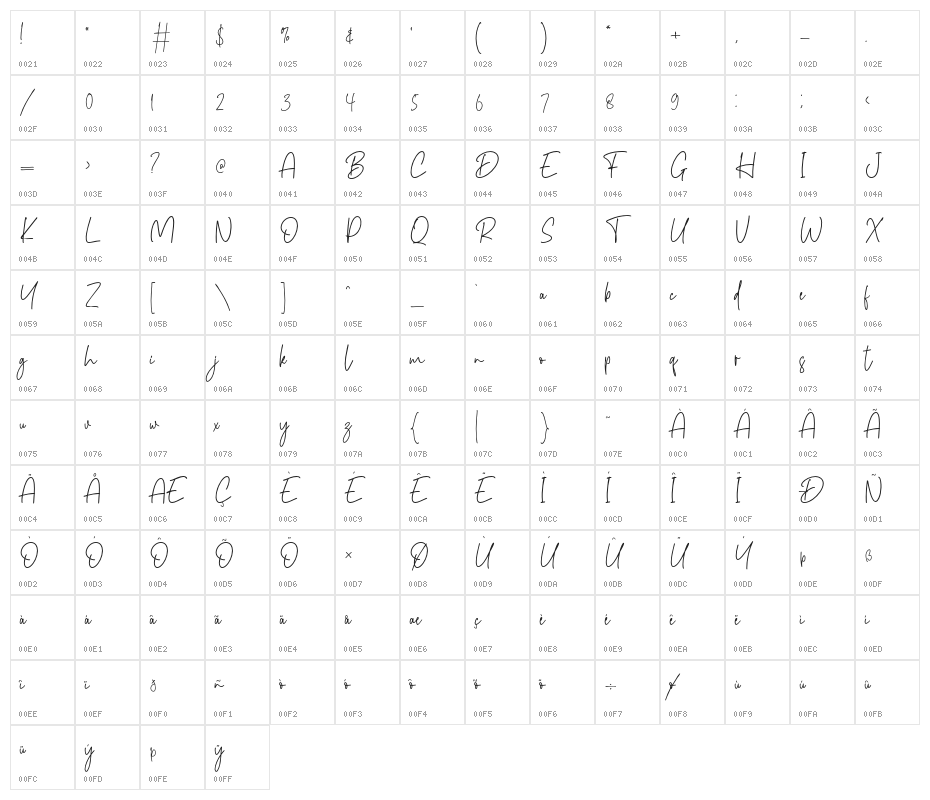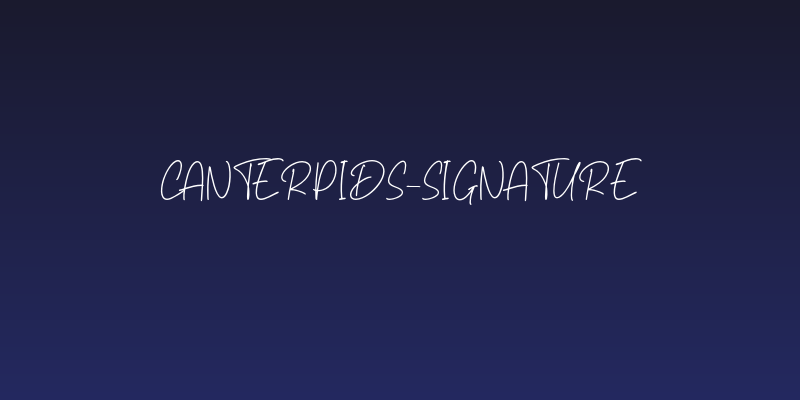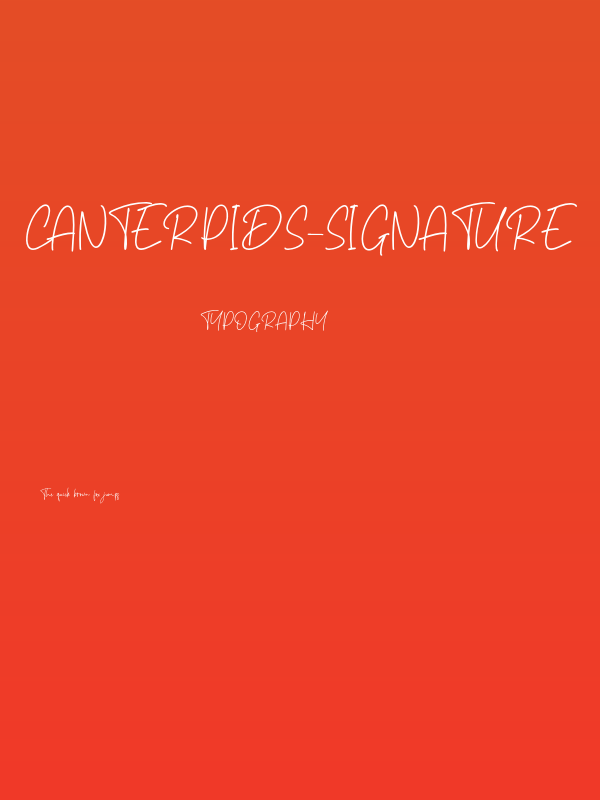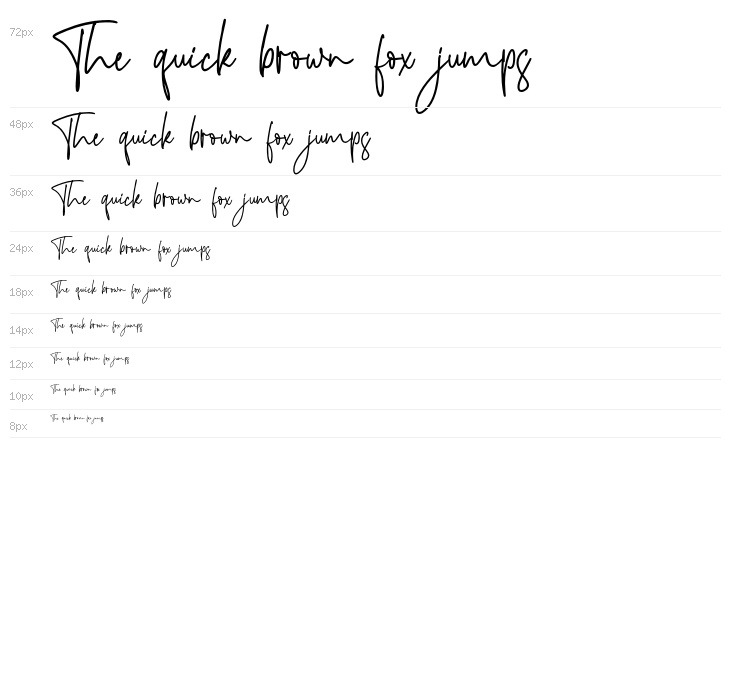
Canterpids-Signature Font
Canterpids-Signature Description
This font exhibits a flowing, handwritten style that mimics the elegance of a personal signature. The characters are crafted with smooth, continuous strokes, giving it a natural and organic feel. The uppercase letters are tall and slightly narrow, while the lowercase letters maintain a consistent flow, enhancing the script-like appearance. The numerals and special characters are designed to complement the overall aesthetic, maintaining the same fluidity and grace. This font is perfect for adding a personal touch to any project, conveying sophistication and creativity.
| Overall Style | Elegant, Personal, Creative |
| Proposed Projects | Ideal for wedding invitations, personal branding, logos, and social media graphics. |